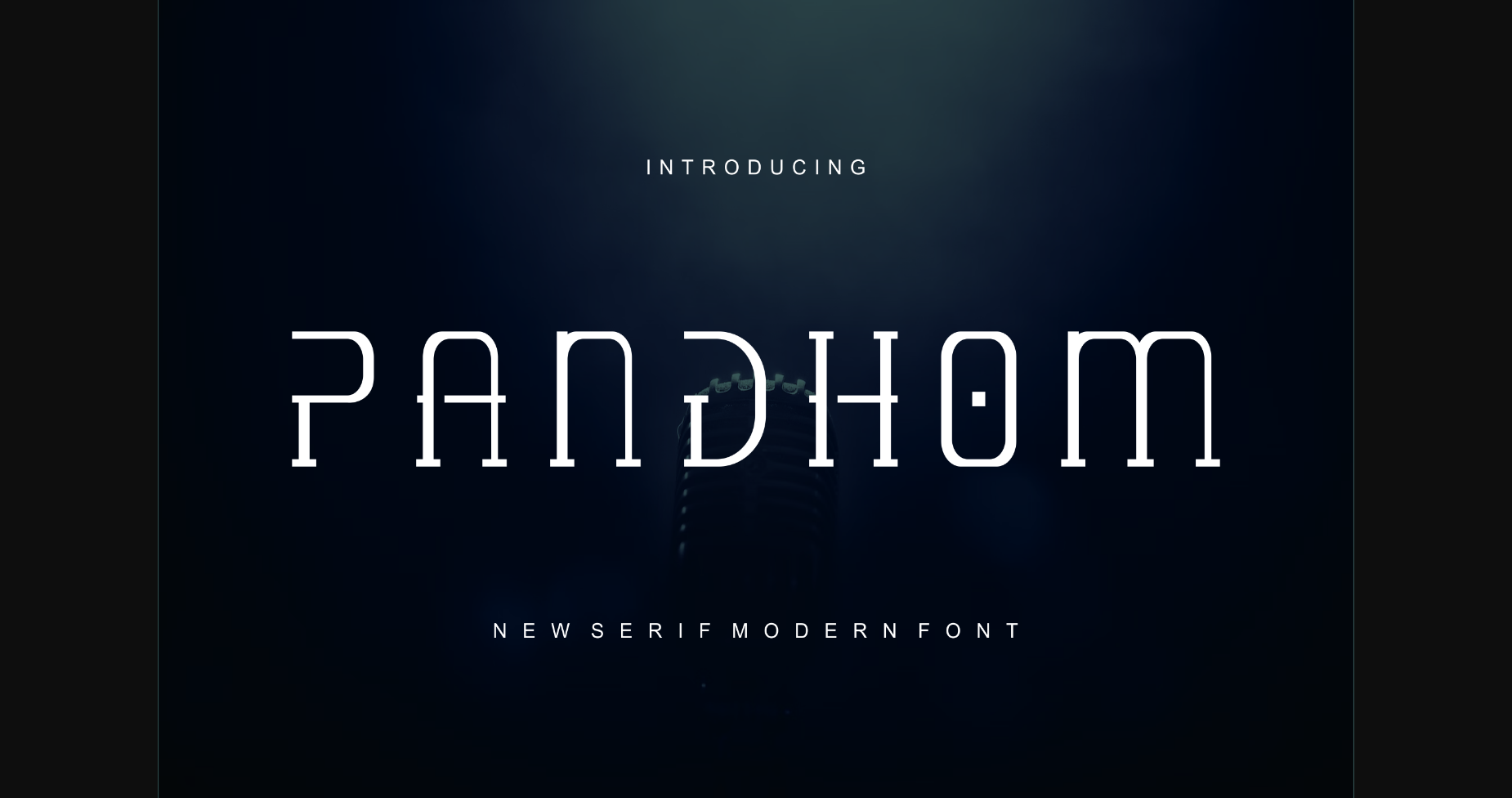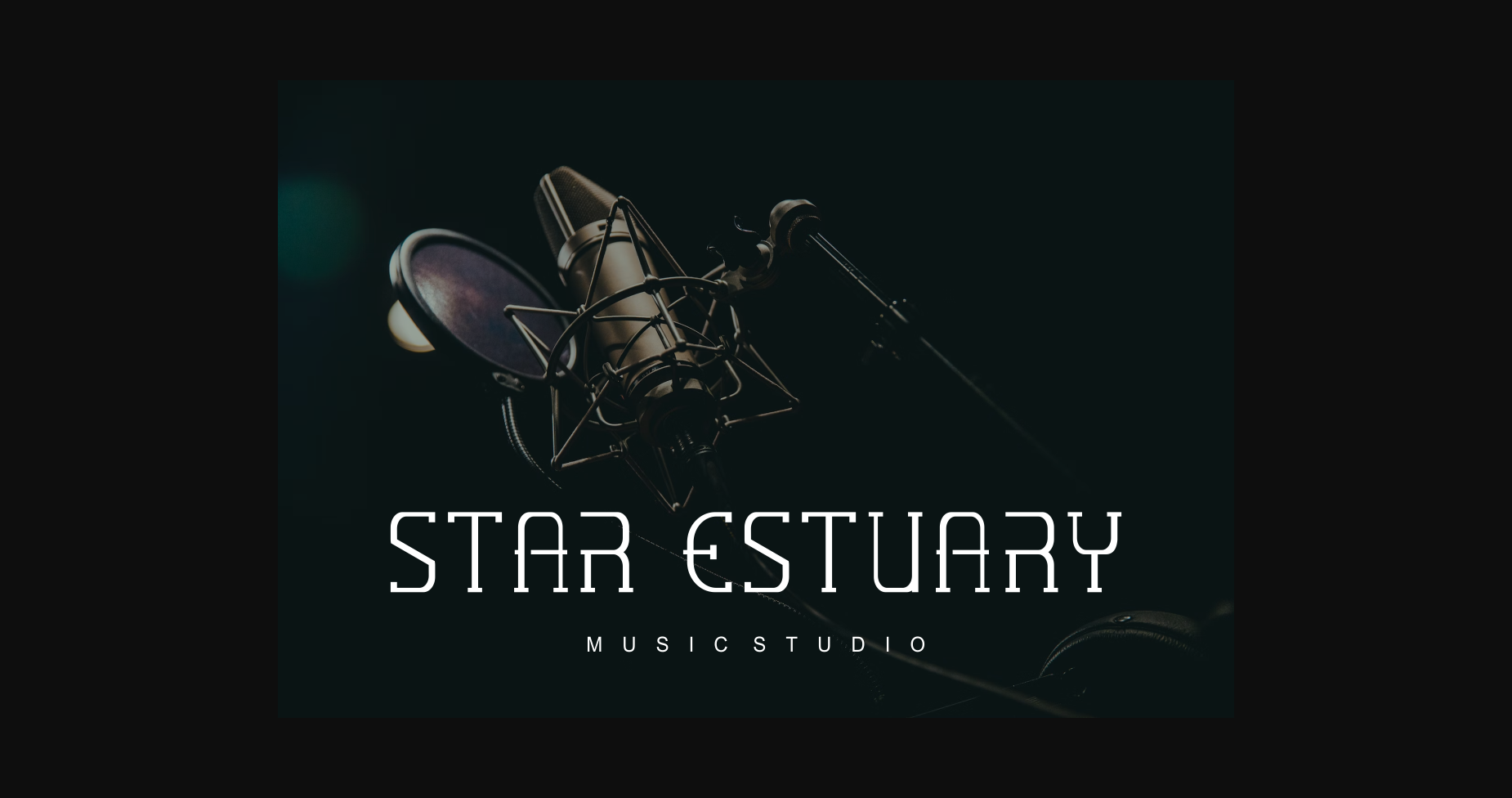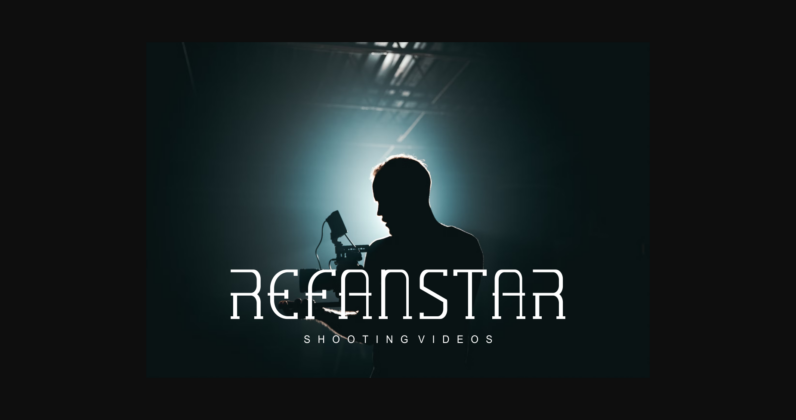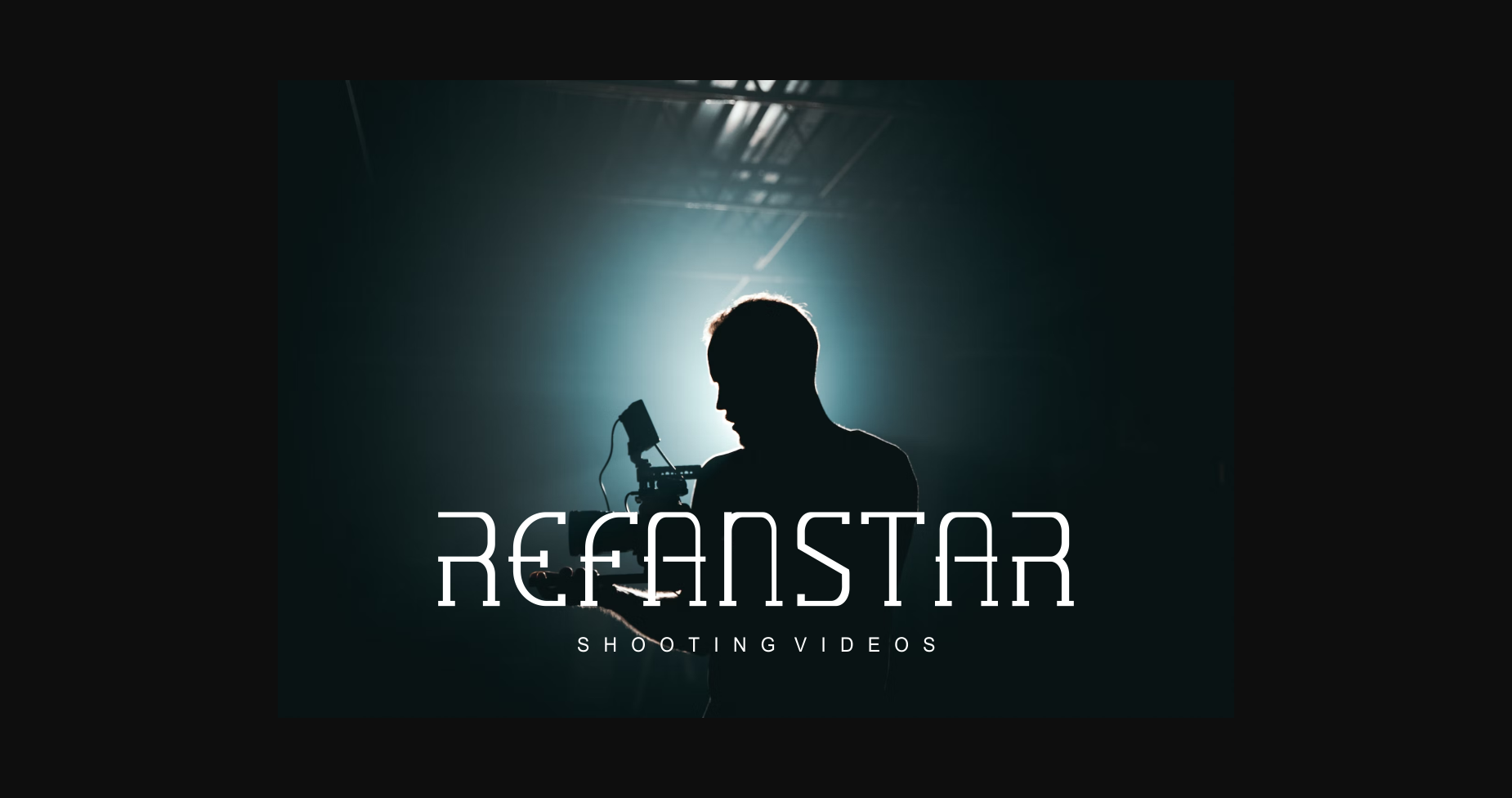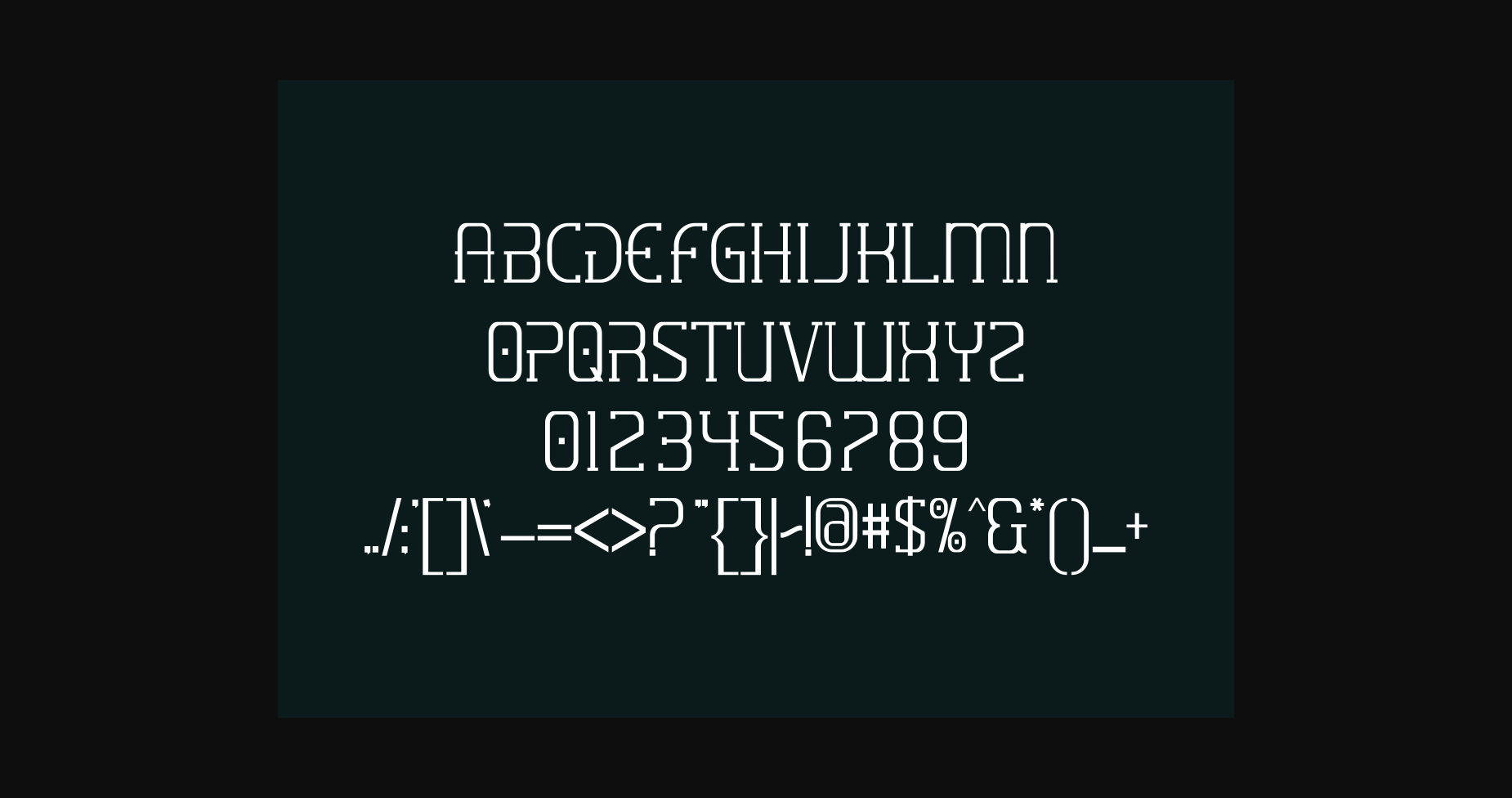
About Pandhom Font
Pandhom is an elegant and modern sans-serif font. This font offers a minimalist and distinctive touch that can easily be applied to lots of designs such as book covers, magazines, social media posts, invitations, and so much more!